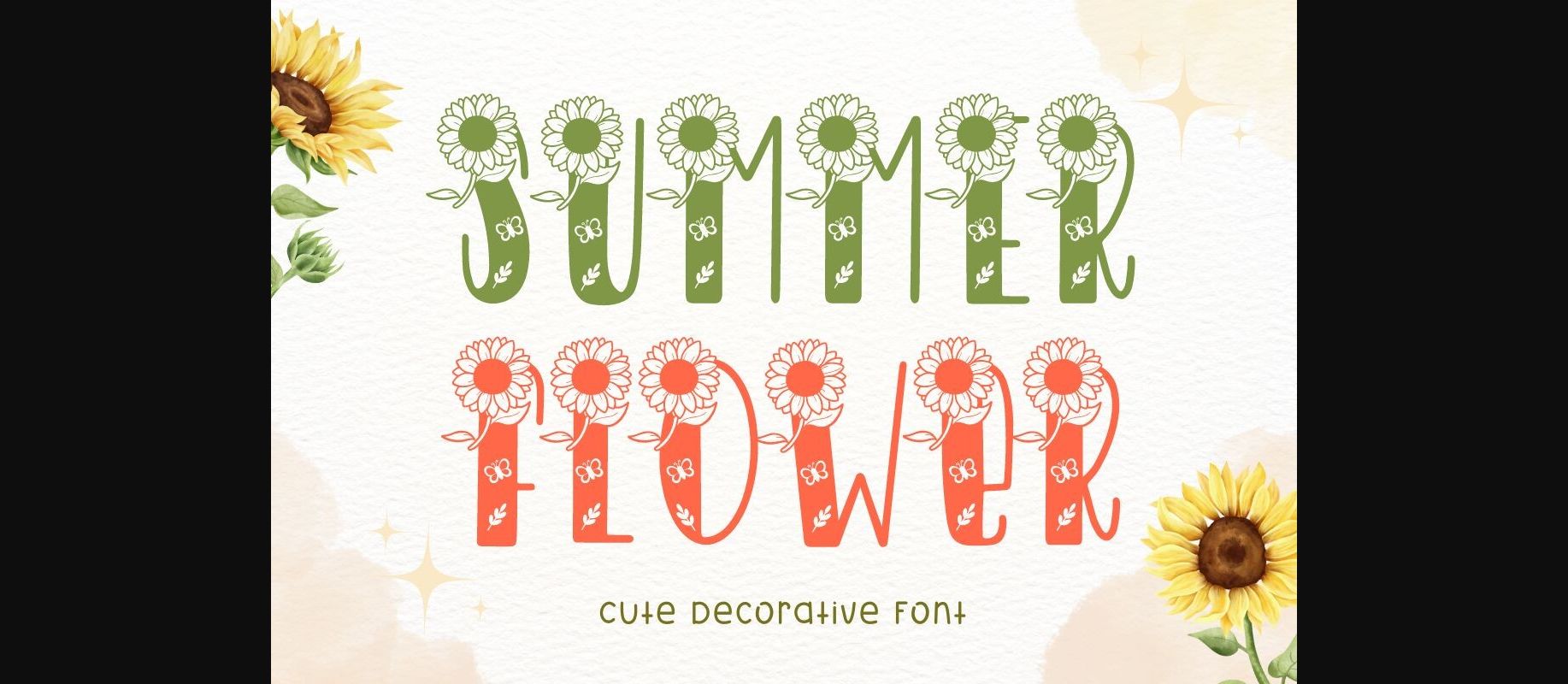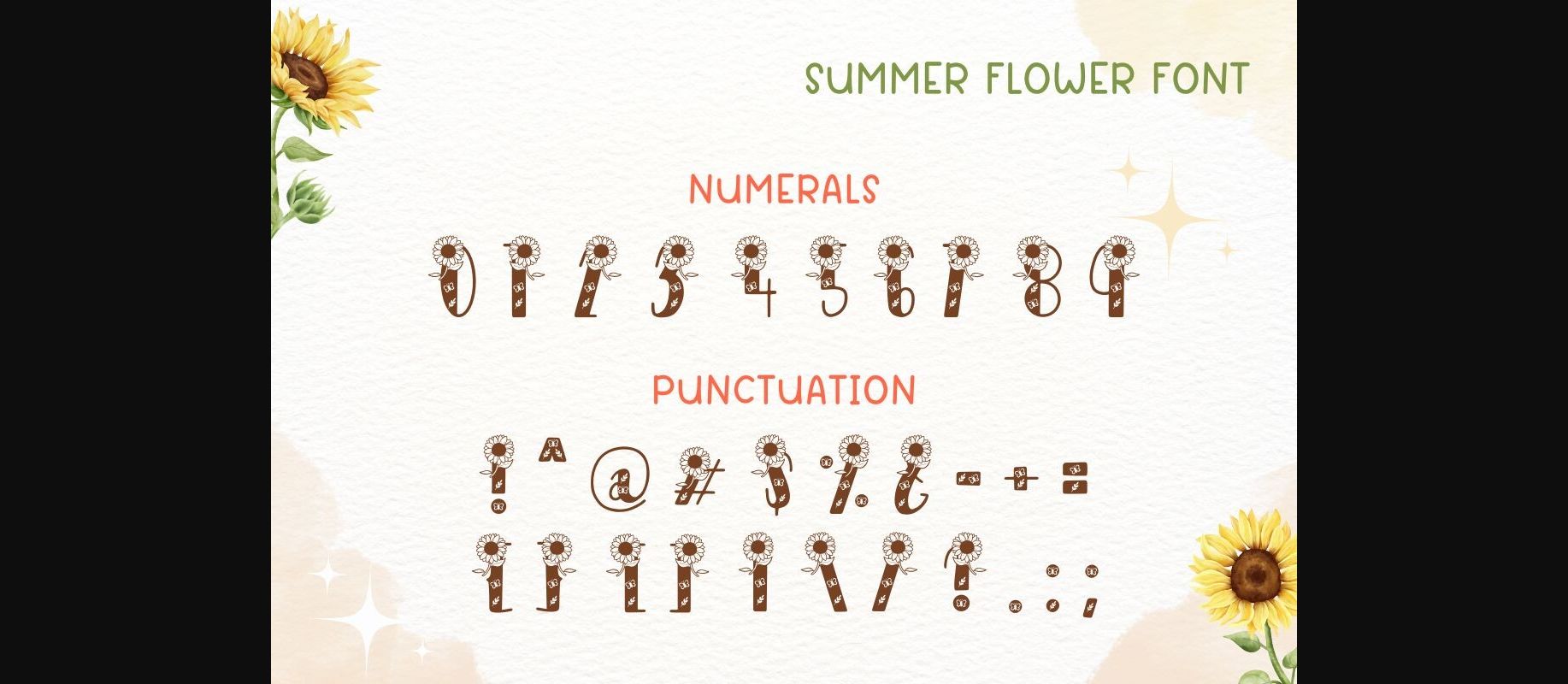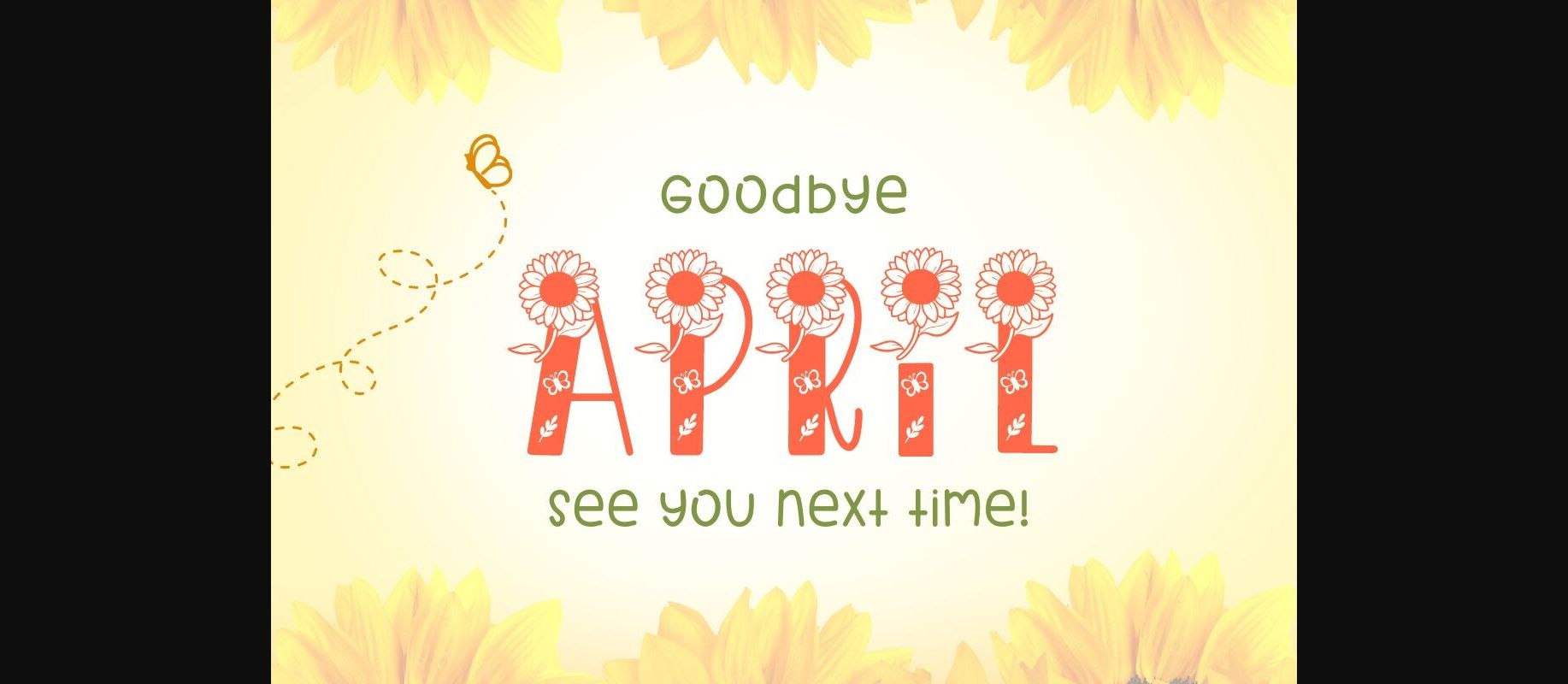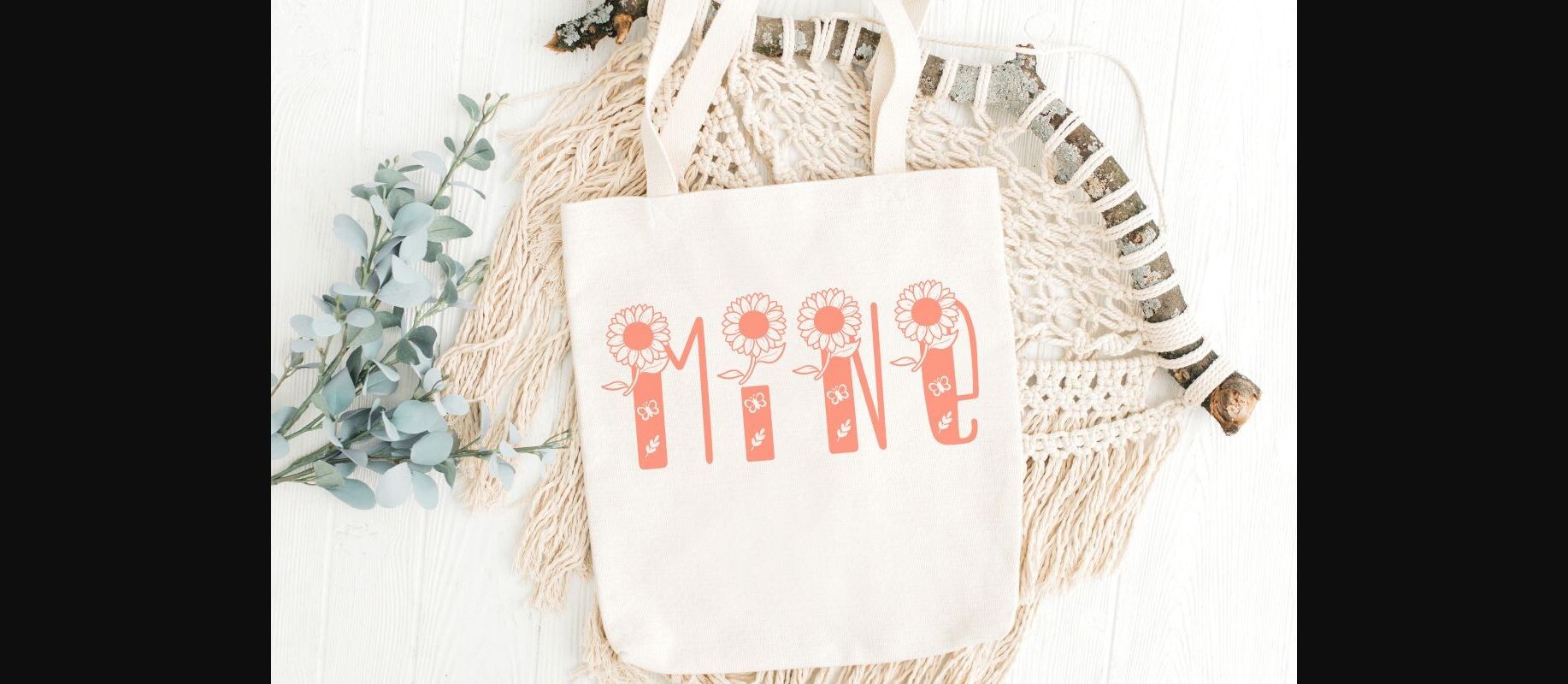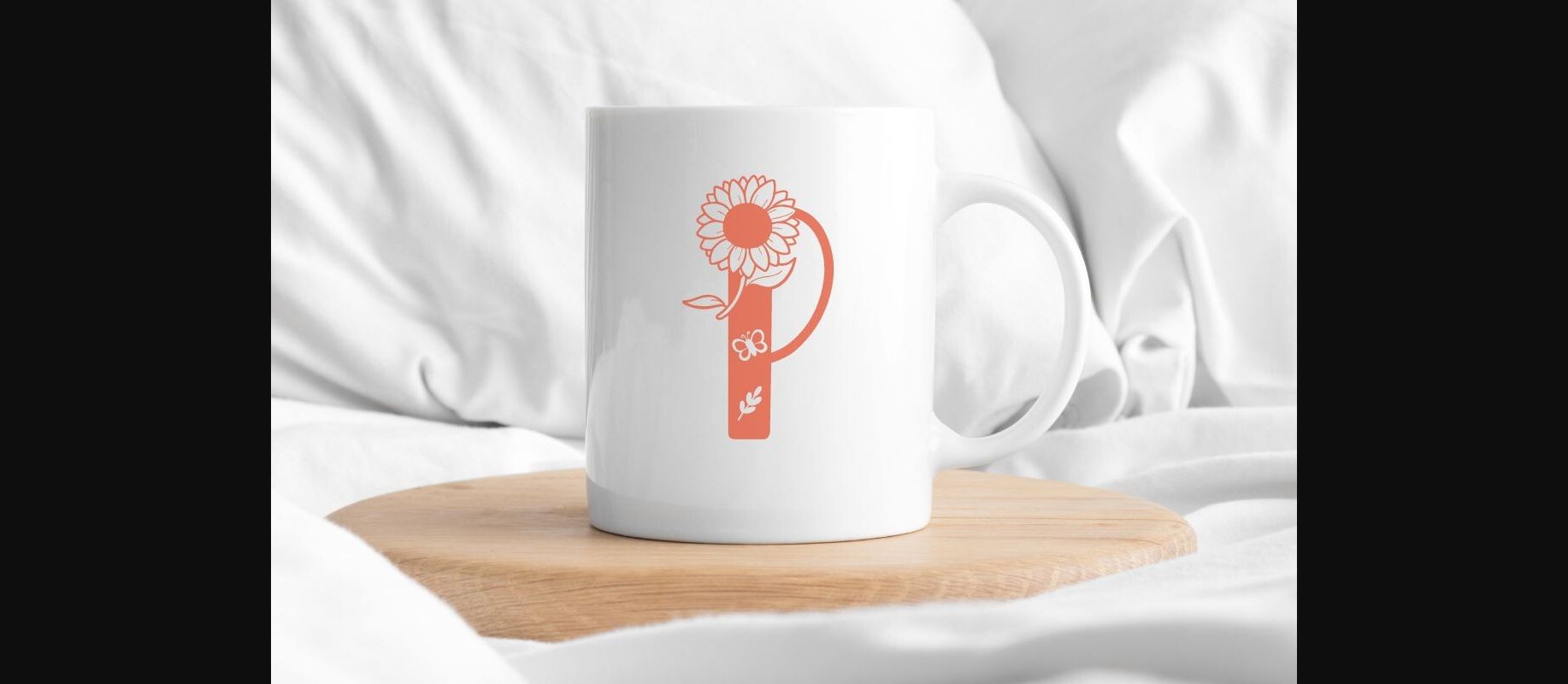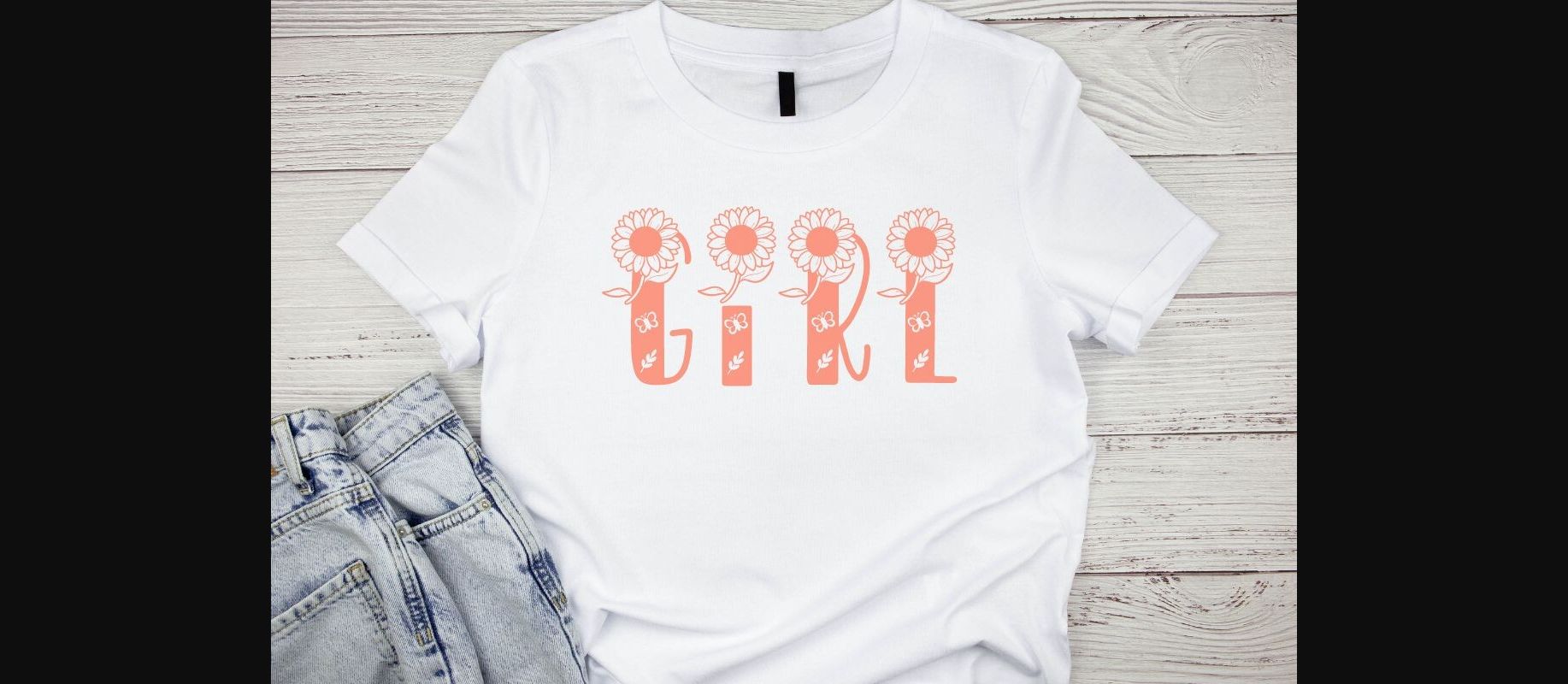
Summer Flower Font
About Summer Flower Font
Summer Flower is a delightful decorative font adorned with charming sunflowers and butterflies. Its whimsical design adds a touch of sweetness to any project, from greeting cards to invitations. With playful details and a cheerful vibe, Flower Bees infuses joy and nature-inspired beauty into your designs.